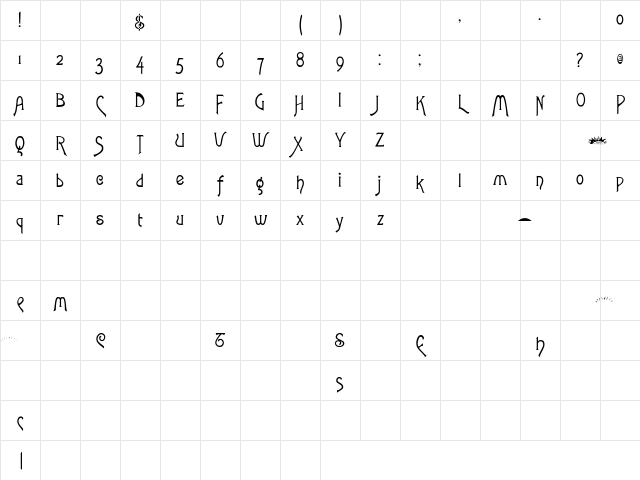
RSToulouseLautrec Regular
Design Context for RSToulouseLautrec
RSToulouseLautrec is a composed and adaptable typeface that performs quietly and consistently across a wide range of design contexts.
Pro Tip: Use RSToulouseLautrec in both headline and body roles to test its range before committing to a single application.